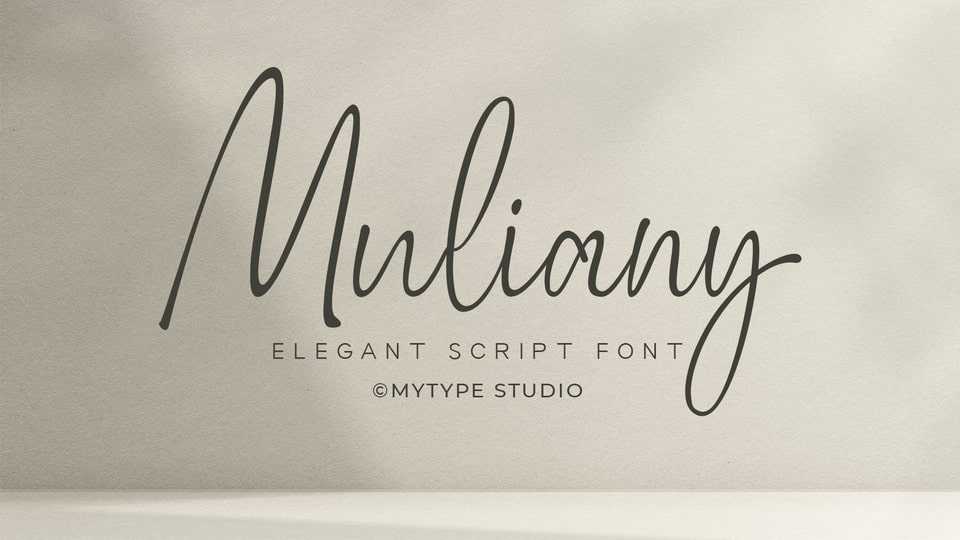
Download Muliany font, a handwritten typeface with natural movement that make looks elegant, classy and beauty for your project.
Designer: Mytype Studio